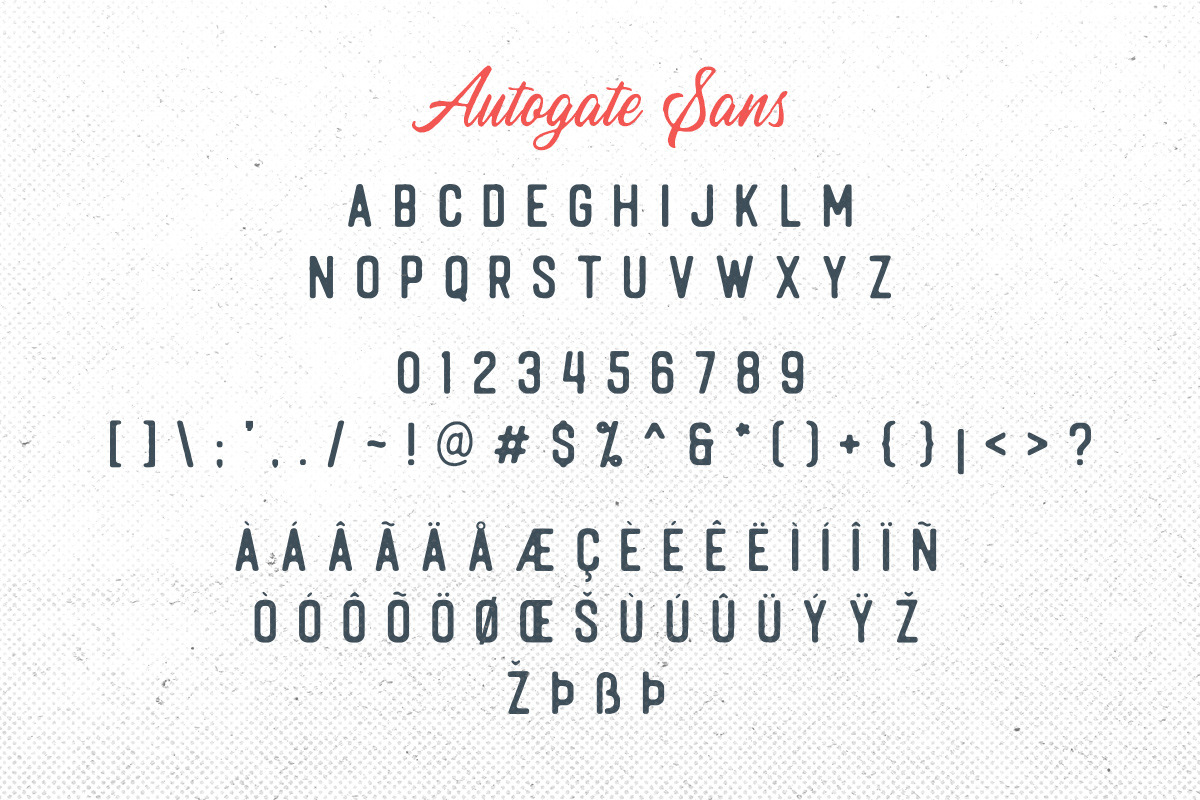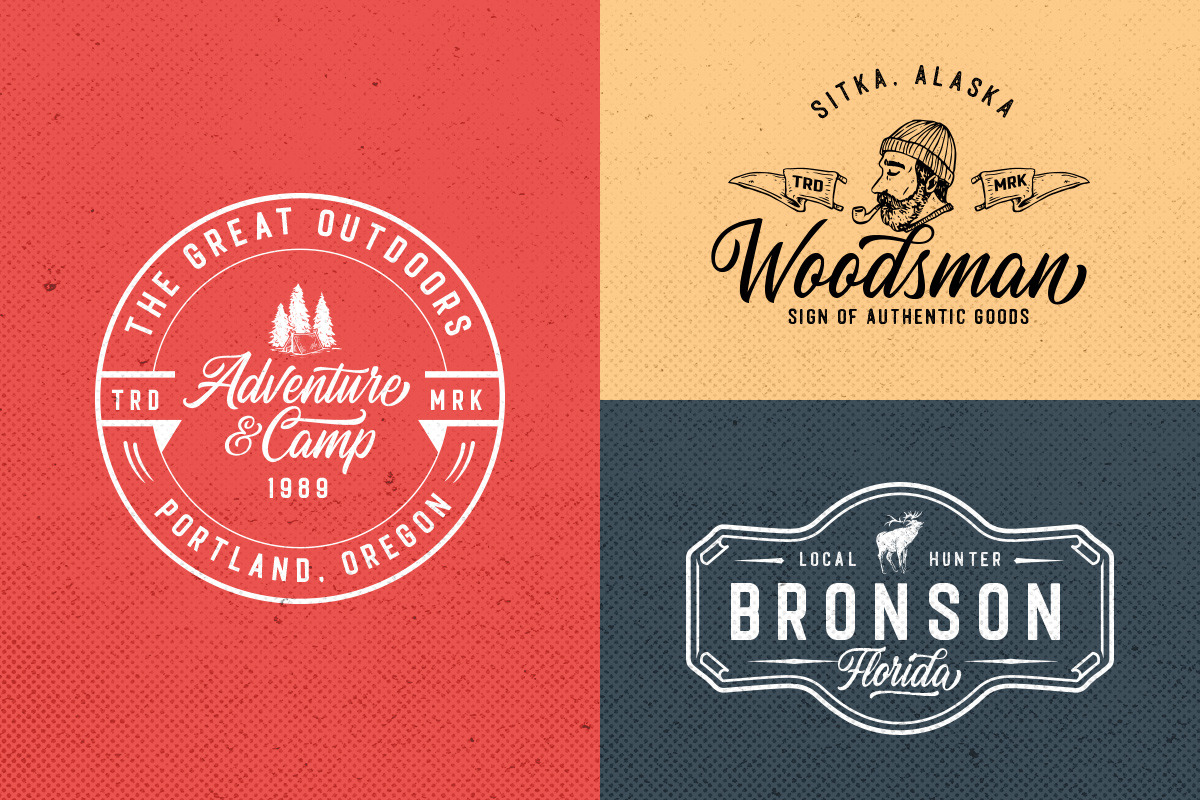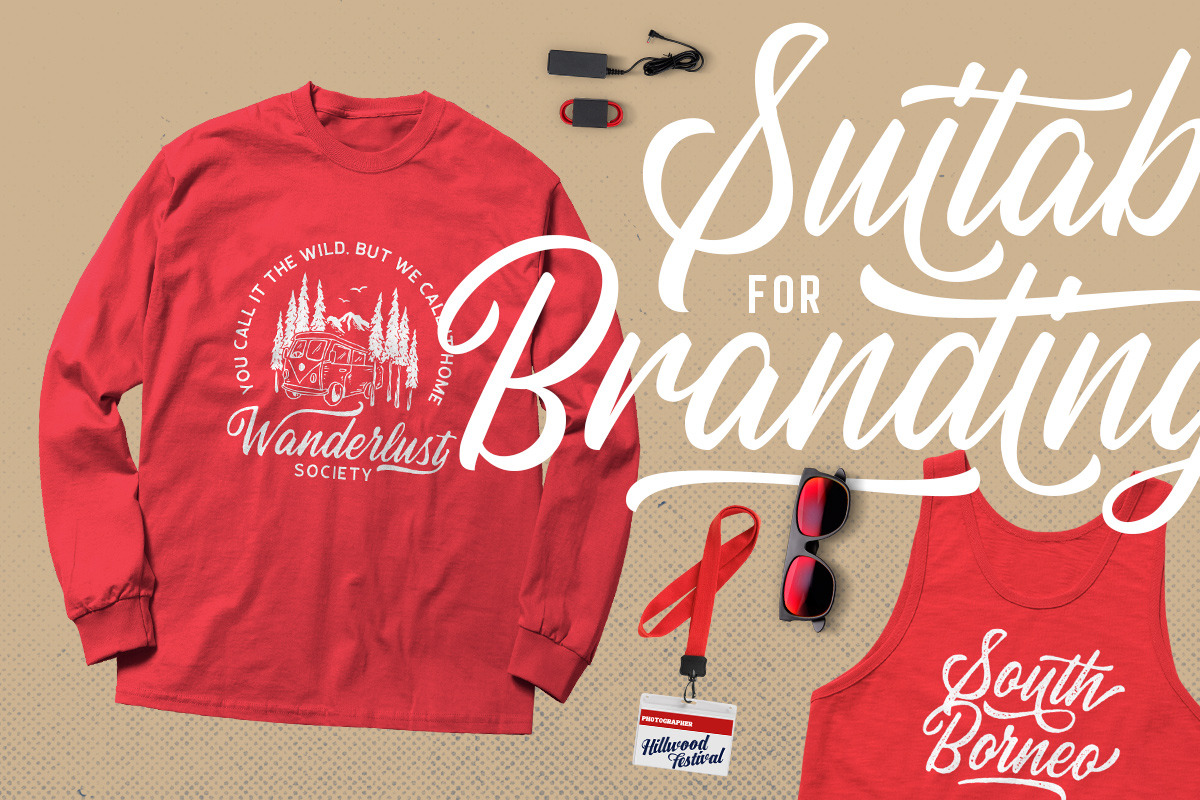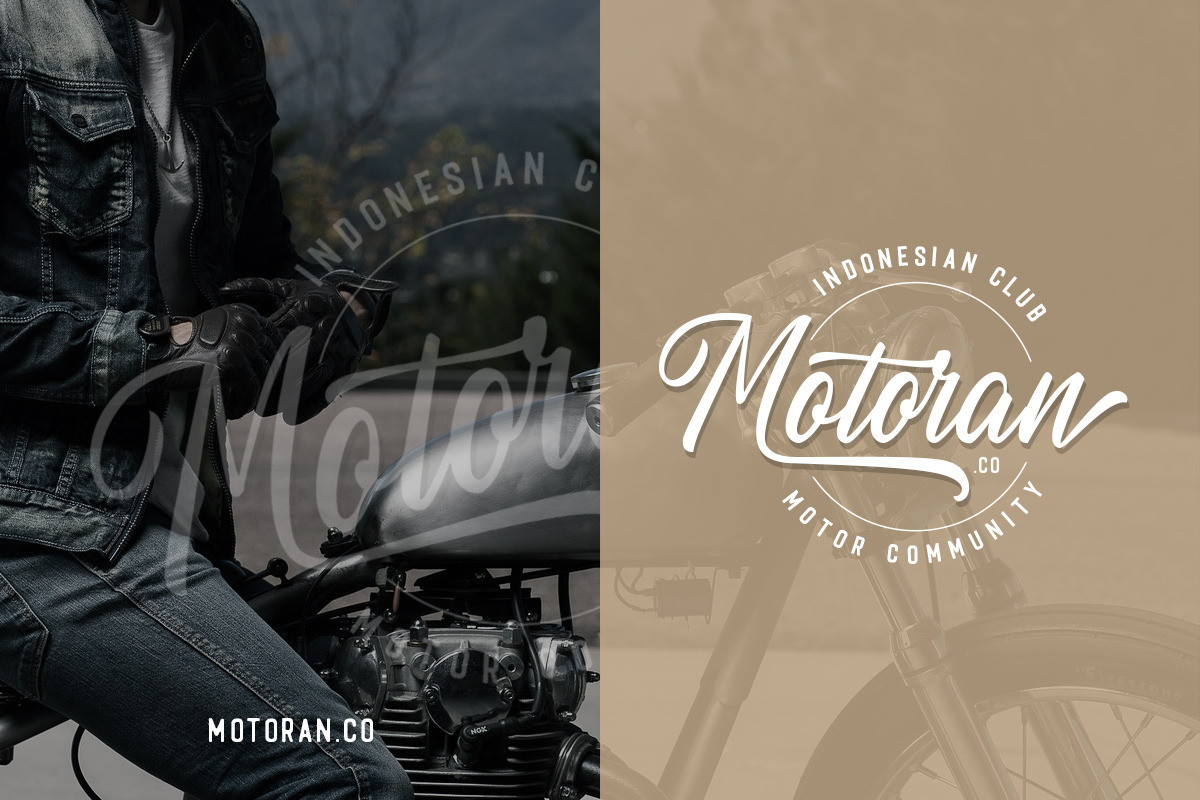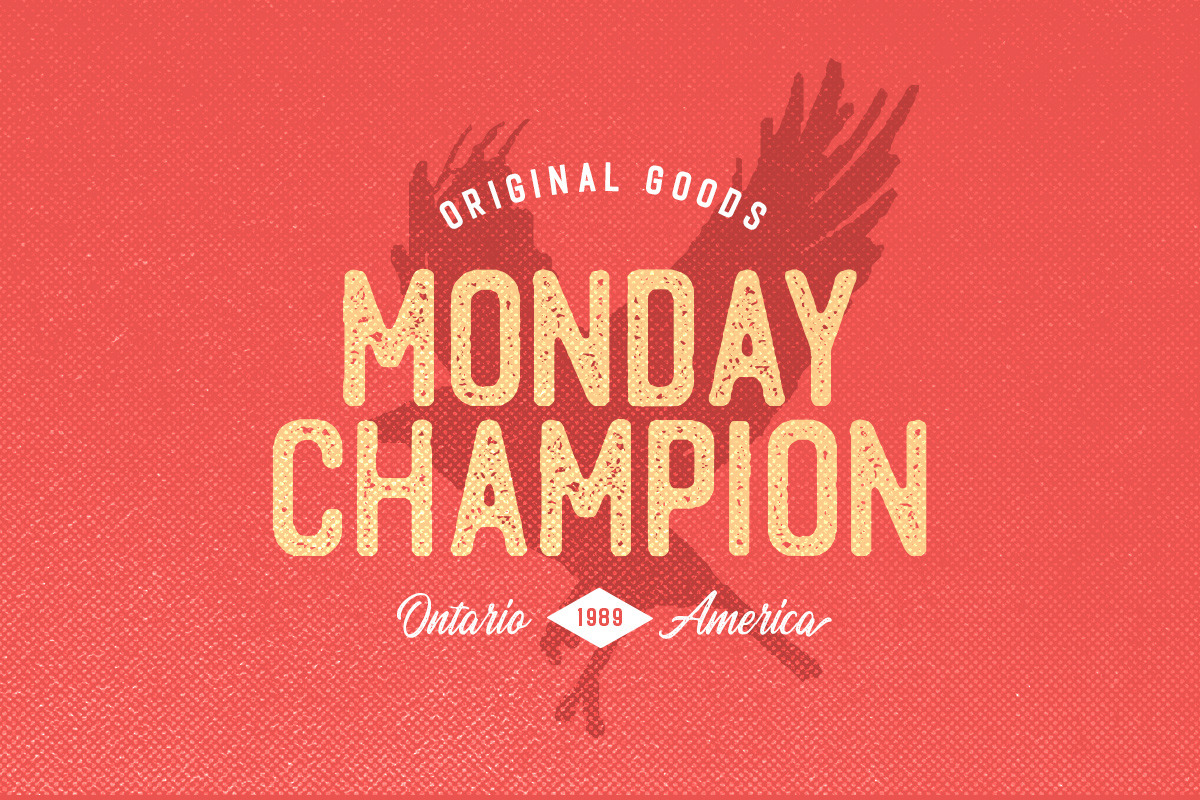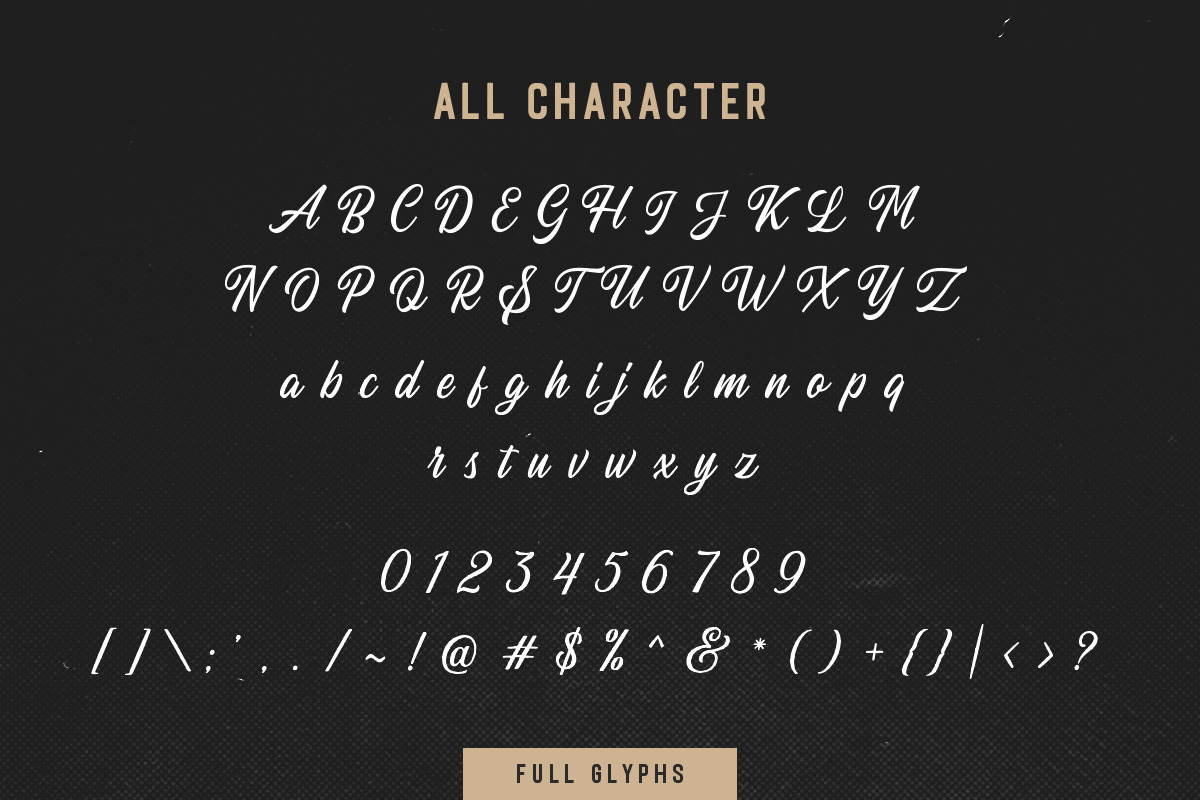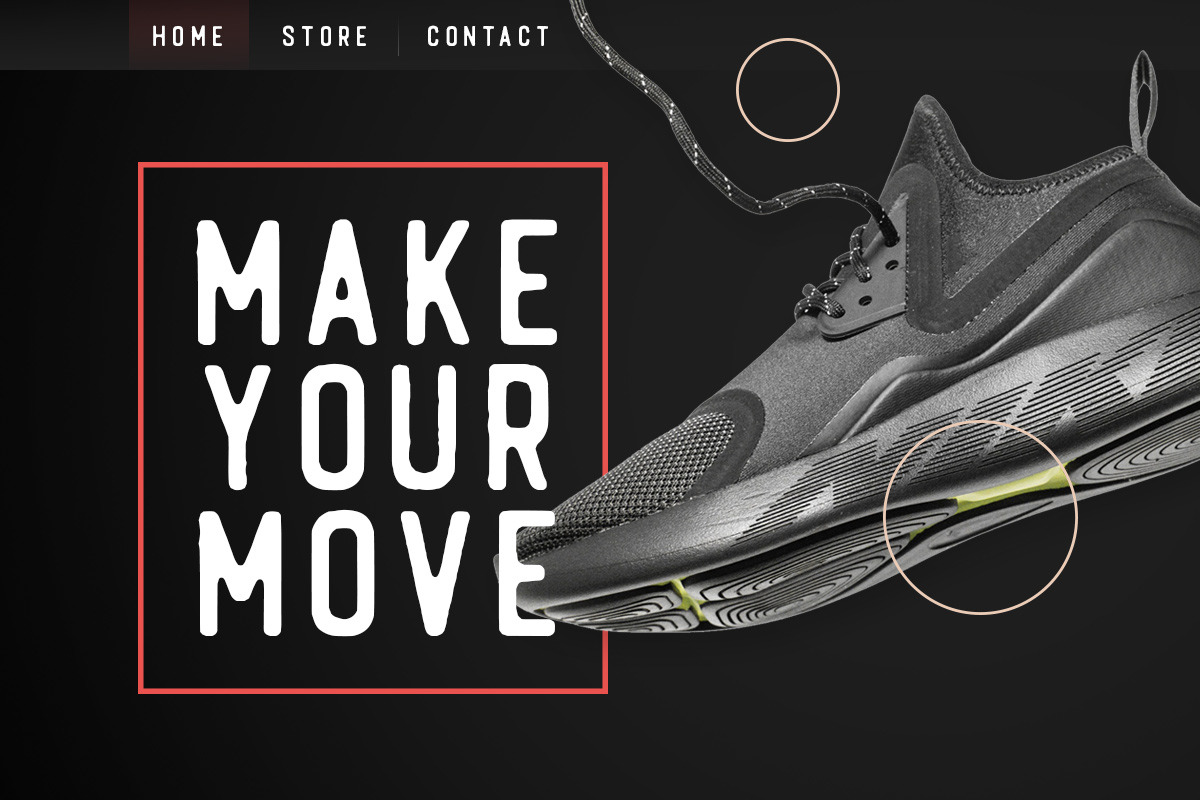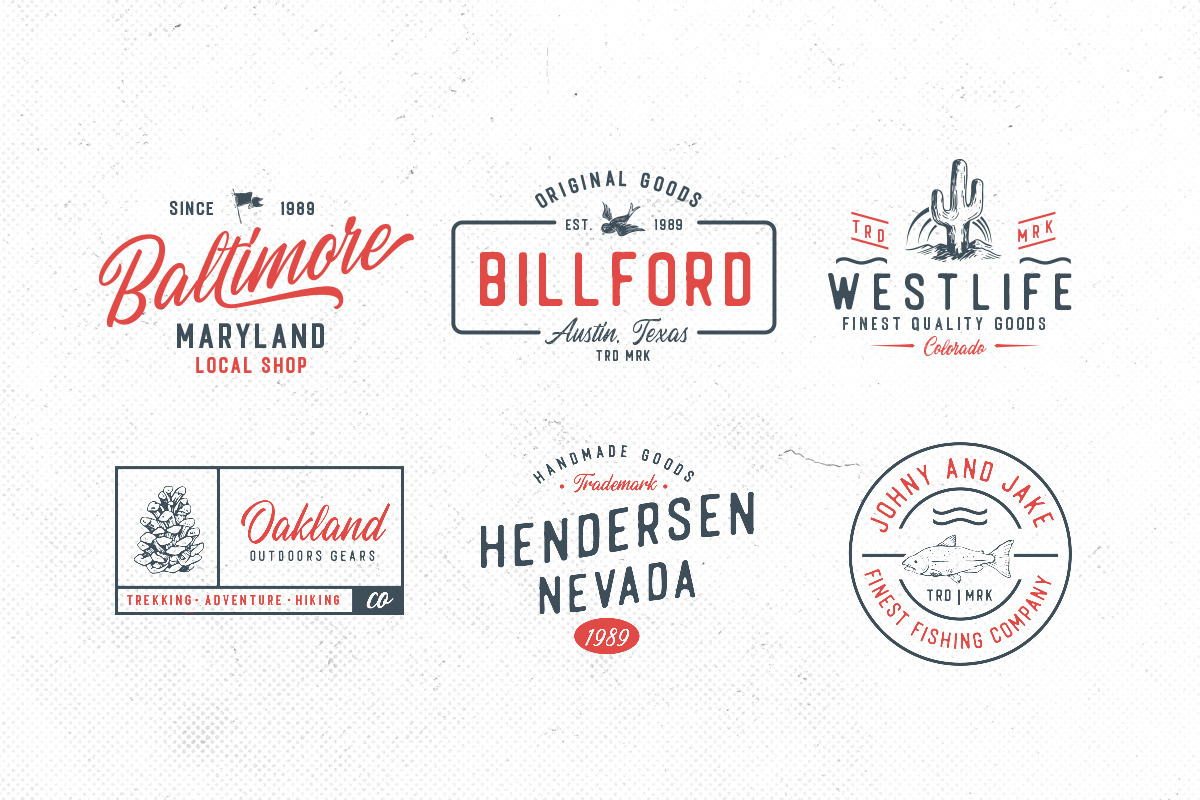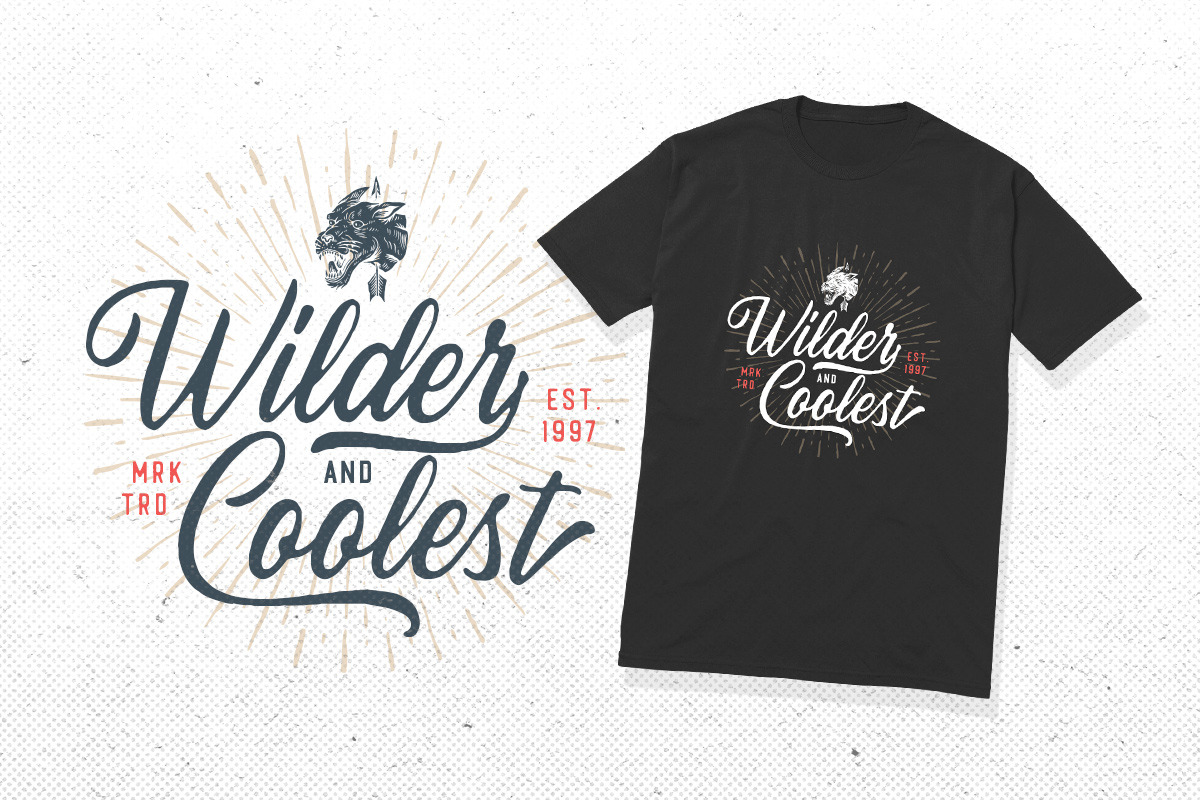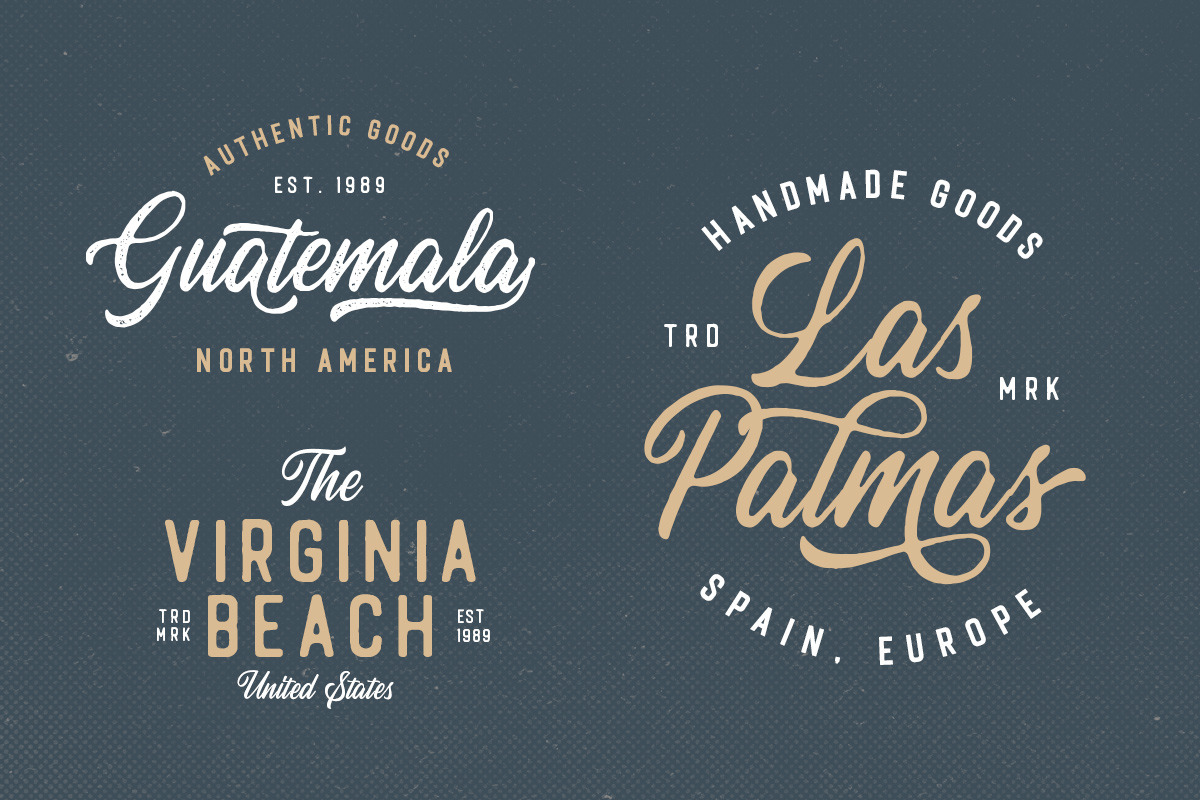
Autogate - Font Duo (+BONUS)
Introducing, Autogate Font Duo +BONUS.
Autogate Font Duo is a pair of script and sans font that perfectly. The classic feel is really perfect for you who needs a typeface for especially logotype, apparel, invitation, branding, packaging, advertising etc. This typeface is comes in uppercase, lowercase, punctuations, symbols & numerals, 09 stylistic set alternate, ligatures, etc also support multilingual and already PUA encoded.
Foreign Languages Support: ÀÁÂÃÄÅÇÈÉÊËÌÍÎÏÑÒÓÔÕÖØÙÚÛÜÝßàáâãäåæçèéêëìíîïñòóôõöøùúûüýÿ